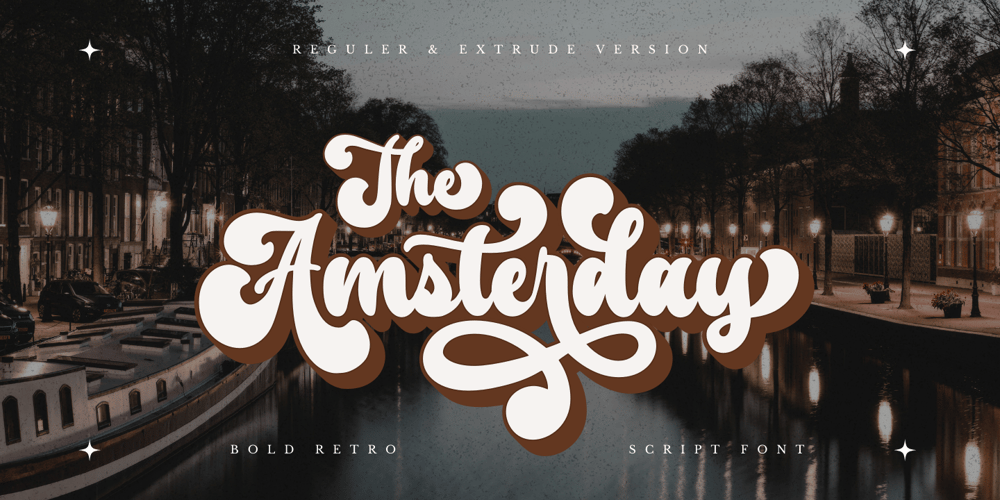
The Amsterday Font Family was designed by Ainun Jinan and published by Jinan Studio. The Amsterday contains 2 styles and family package options. Introducing The Amsterday, a captivating and versatile Bold Retro Script Font that effortlessly transports your designs back in time while adding a touch of modern flair. This typeface exudes nostalgia and is perfectly suited for a wide range of creative projects, especially those with a vintage theme in mind. The Amsterday timeless elegance and a multitude of alternate characters make it a go-to choice for designers looking to infuse their work with a sense of yesteryear charm.Features A set of uppercase and lowercase glyphs Number, symbol, and punctuation Multilingual Support Alternates & Ligatures Extrude Version